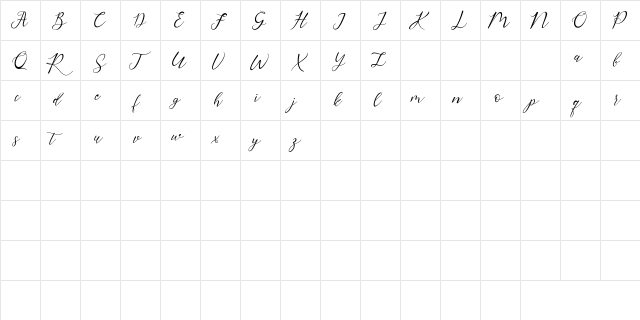
Rembrants Regular
Design Context for Rembrants Typeface
Rembrants is a composed and adaptable typeface that performs quietly and consistently across a wide range of design contexts.